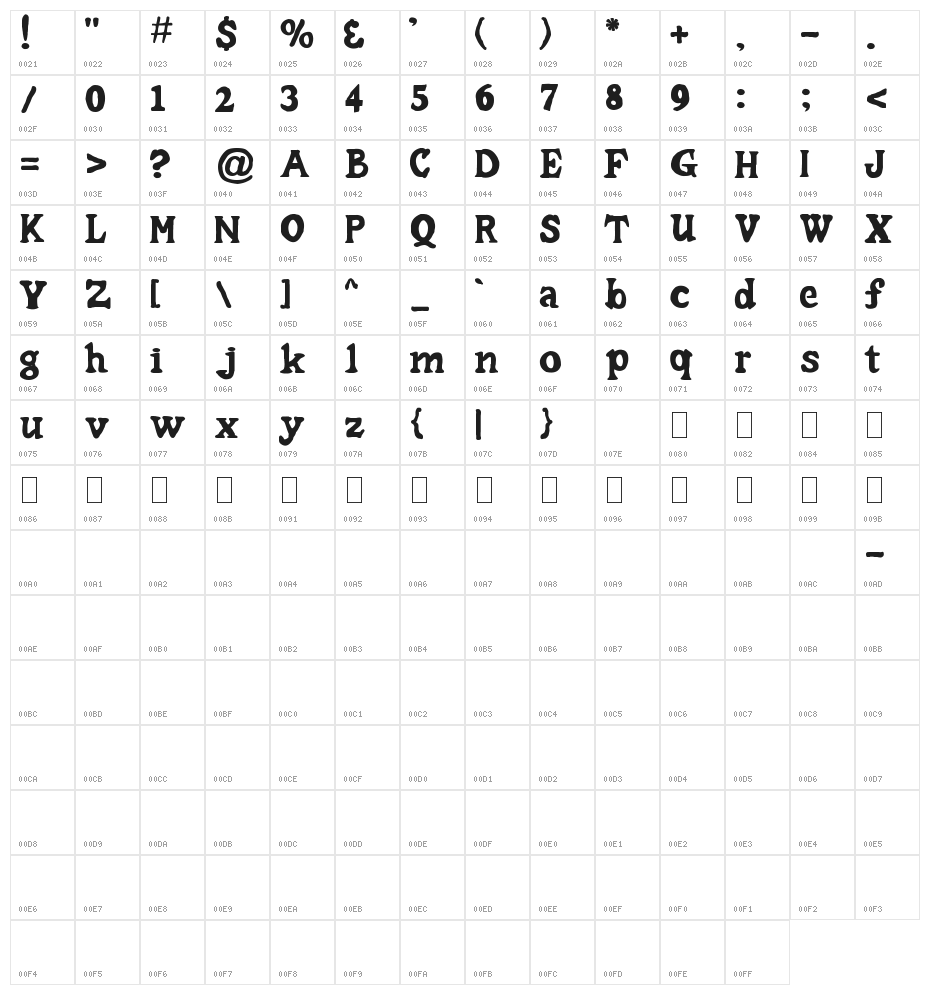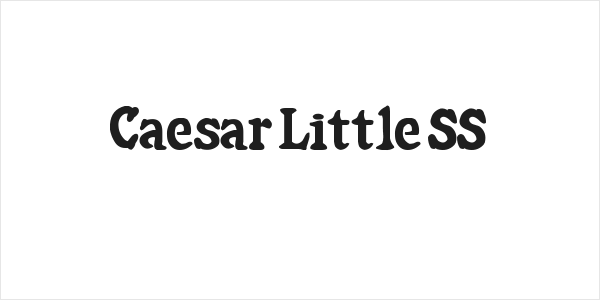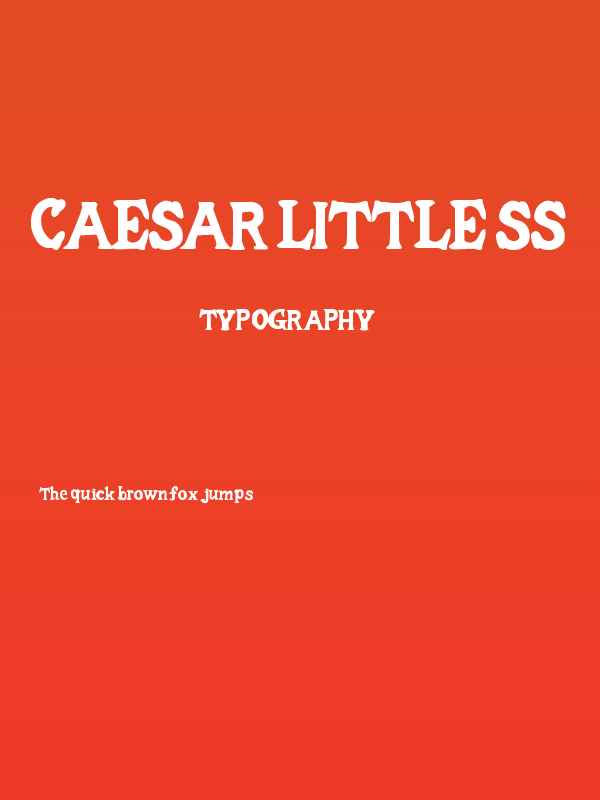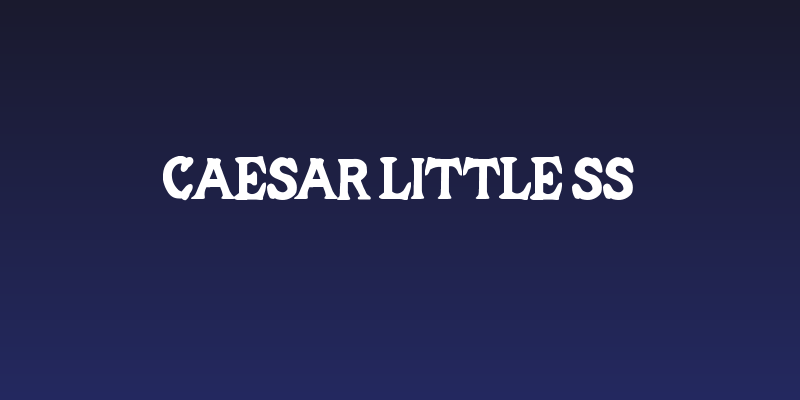
Caesar Little SS Font
Caesar Little SS Description
This font features a bold and playful style with a distinct hand-drawn appearance. The characters are slightly irregular, giving it a whimsical and informal look. The uppercase letters are robust and commanding, while the lowercase letters maintain a consistent flow with rounded edges. Numbers and special characters follow the same playful design, making them stand out. The overall aesthetic is reminiscent of vintage or retro styles, suitable for projects that require a touch of nostalgia or creativity.
Overall StyleVintage, Playful
Proposed ProjectsIdeal for children's books, creative posters, retro-themed designs, and playful branding.